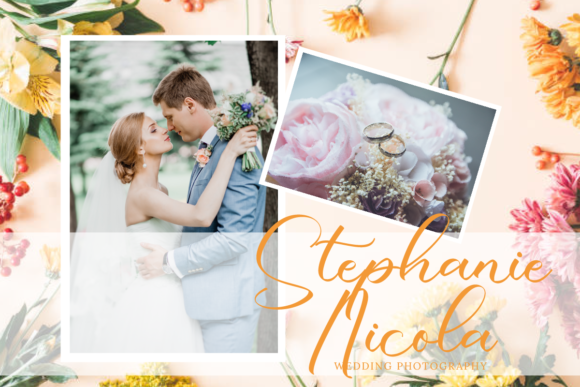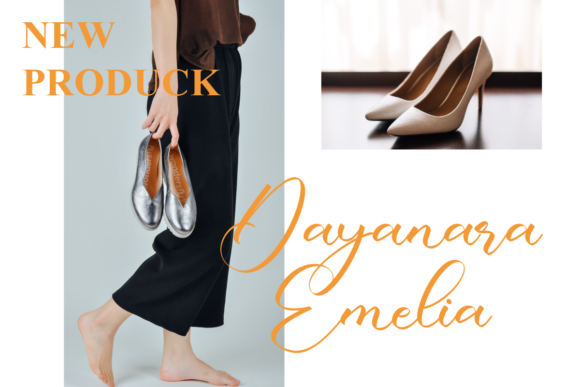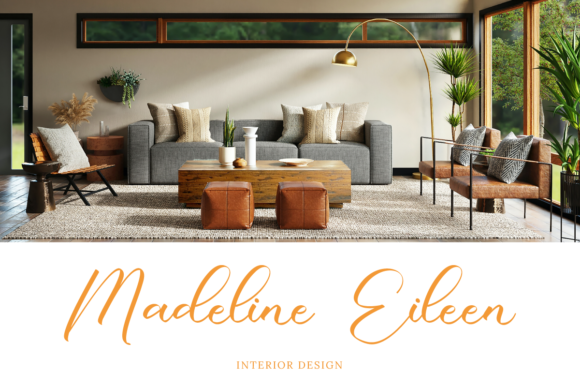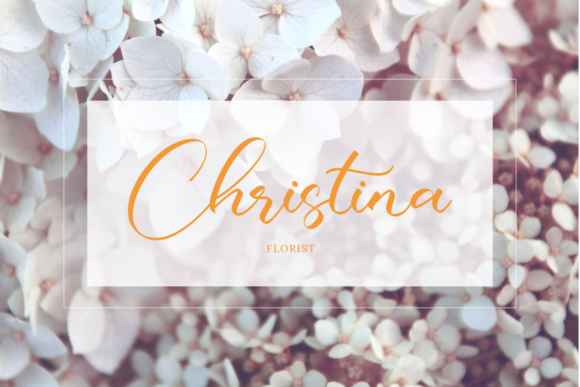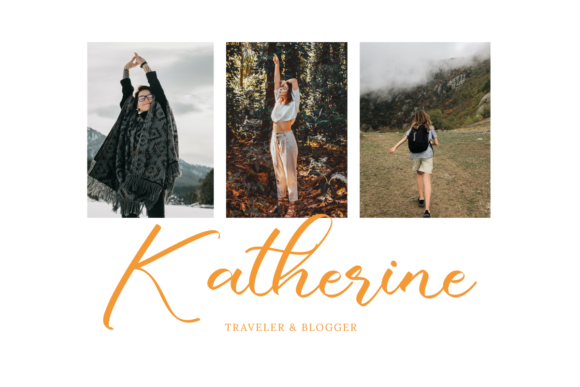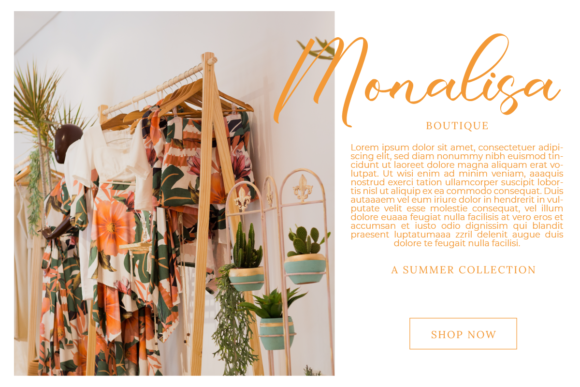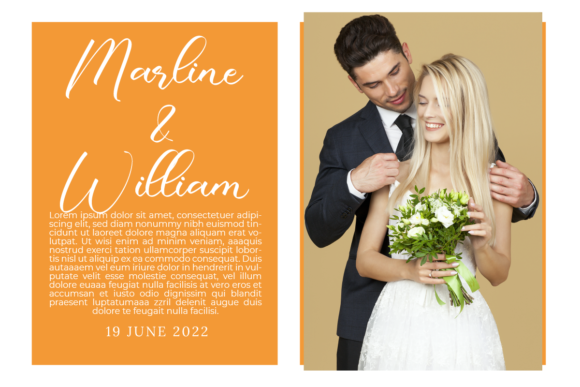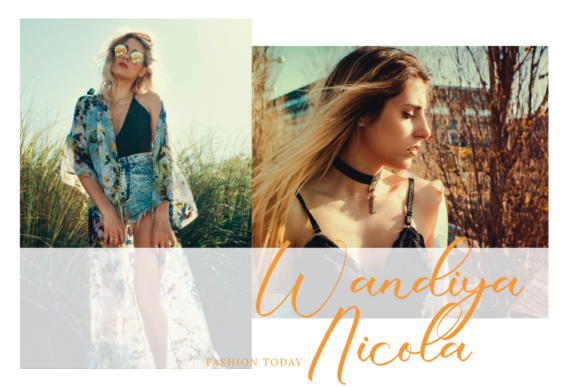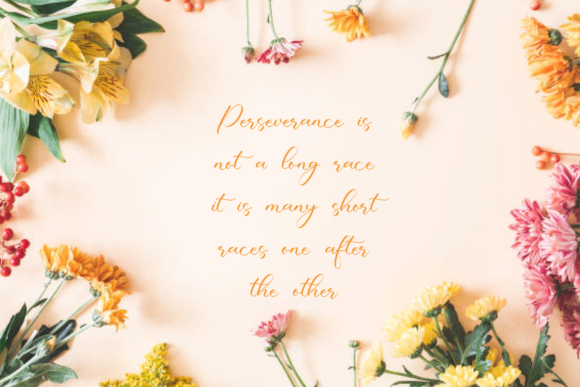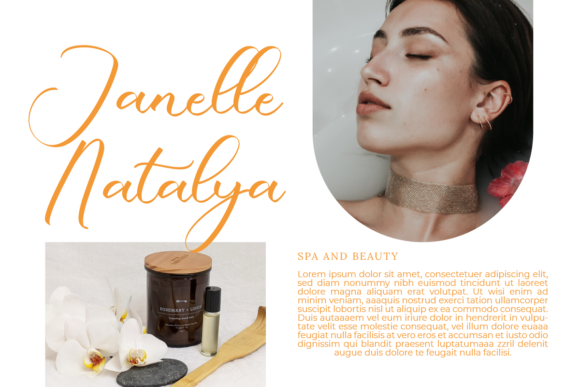
Giselle Jakayla Font
About Giselle Jakayla Font
Giselle Jakayla is a thin lettered and graceful script font. Fall for its ravishing style and use it to create gorgeous wedding invitations, beautiful stationary art, eye-catching social media posts, and much more!